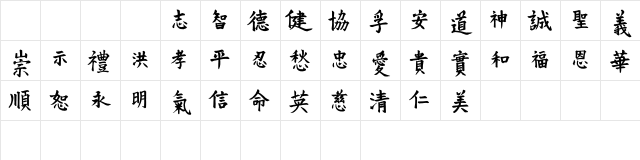
Complete VTMeiOrnaments Regular glyph index. Displaying only characters natively supported by VTMeiOrnaments Regular font.
VTMeiOrnaments is built around its visual character rather than neutral utility - its distinctive forms are designed to make an impression at display sizes.